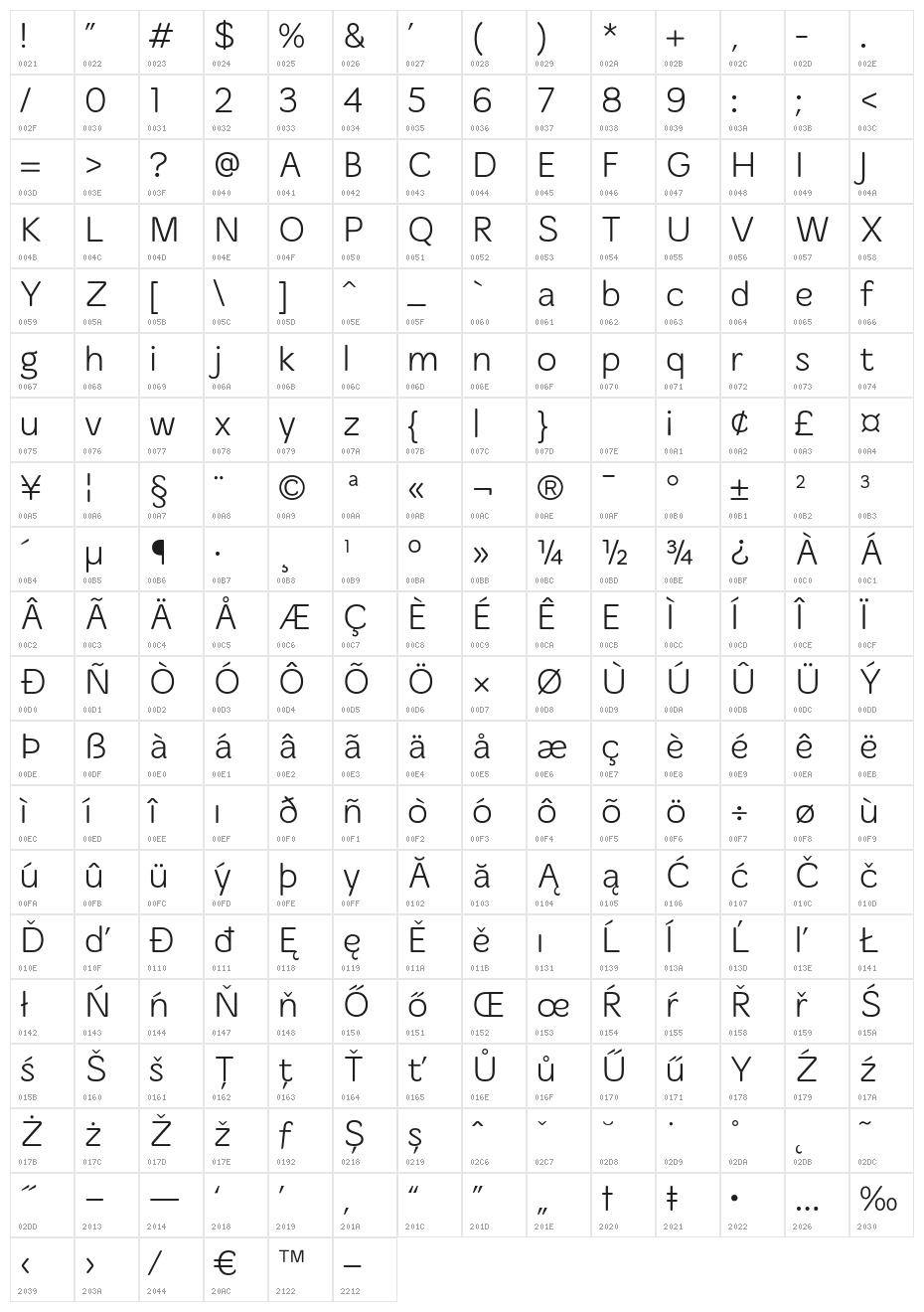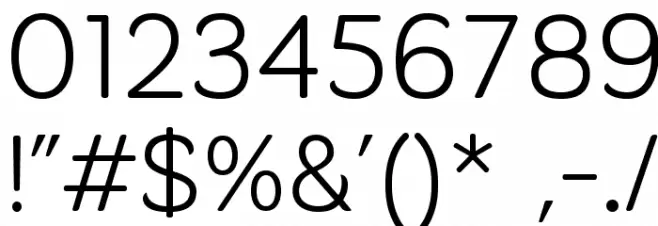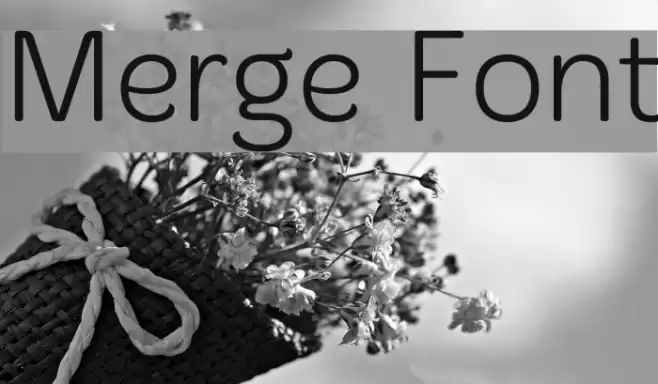
Merge Font
Merge Description
This font features a clean and modern sans-serif design, characterized by its geometric shapes and uniform stroke widths. The characters are well-proportioned, with a consistent height and width that provides a balanced appearance. The uppercase letters are bold and assertive, while the lowercase letters maintain a friendly and approachable feel. The numerals are clear and easy to read, making them suitable for various applications. Special characters are included, offering versatility for different design needs. Overall, this font exudes a contemporary and professional vibe, making it ideal for digital and print media.
| Use Case | Headlines, Body text, Logos |
| Proposed Projects | Ideal for branding, web design, advertising, and editorial projects. |